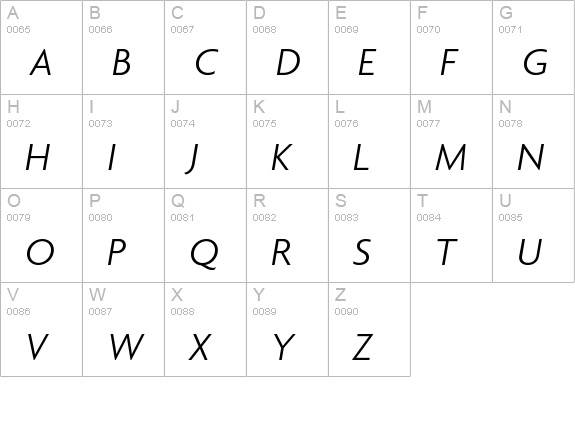
Agenda-LightItalic Font Details
Agenda-LightItalic is a sophisticated and elegant font that exudes a sense of modernity and style. Its delicate and slanted design adds a touch of sophistication to any project, making it perfect for use in fashion magazines, luxury branding, and elegant invitations. The light weight of the font gives it a delicate and refined appearance, making it ideal for creating a subtle yet impactful impression. What sets Agenda-LightItalic apart is that it is not only a stunning font but also freely available to download at FontsMarket.com. This means that you can add this beautiful typeface to your collection without any cost, making it a valuable resource for designers and creatives looking to elevate their work with a touch of sophistication and style. Whether you're designing a sleek logo, creating a stylish invitation, or crafting a high-end editorial layout, Agenda-LightItalic is sure to make a lasting impression. Download this exquisite font for free at FontsMarket.com and elevate your projects with its elegant charm and modern flair.